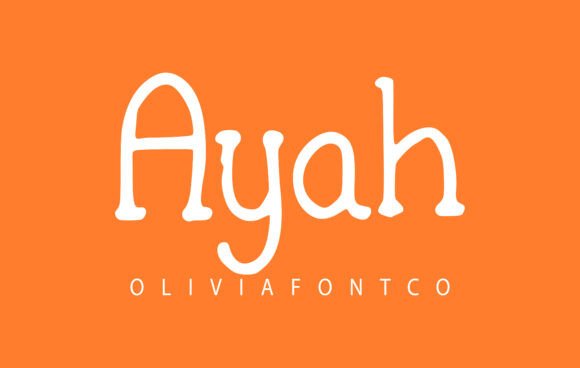
Ayah Font: The Ultimate Handwritten Font for Creative Designs
In the world of typography, a well-designed font can make all the difference in elevating your creative ideas to new heights. Introducing Ayah Font, an authentic handwritten font with a romantic touch that is sure to capture your heart. Expertly crafted to be a true favorite, Ayah Font has the potential to transform your designs and take them to the highest level.
The Unique Features of Ayah Font
Ayah Font boasts a range of unique features that make it an exceptional choice for designers. This font is legible and looks great as a title or body text, making it versatile and adaptable to various design applications. Whether you’re working on magazine headlines, social media graphics, branding materials, wedding invitations, or cards, Ayah Font is the perfect choice.
Romantic and Authentic
Ayah Font’s romantic and authentic handwritten style is what sets it apart from other fonts. The font’s elegant and flowing lines evoke a sense of sophistication and refinement, making it ideal for designs that require a touch of class. The authentic feel of Ayah Font also makes it perfect for designs that require a personal and human touch.
Legibility and Versatility
One of the standout features of Ayah Font is its exceptional legibility. The font is designed to be clear and easy to read, making it perfect for body text and titles. Additionally, Ayah Font’s versatility allows it to be used in a wide range of design applications, from digital media to print materials.
Design Applications for Ayah Font
Ayah Font’s versatility makes it an excellent choice for various design applications. Here are some of the ways you can use Ayah Font to elevate your designs:
Magazine Headlines
Ayah Font’s elegant and refined style makes it perfect for magazine headlines. The font’s romantic touch adds a touch of sophistication to any headline, making it stand out on the page.
Social Media Graphics
In the world of social media, visually appealing graphics are essential for grabbing attention. Ayah Font’s legibility and stylish design make it an excellent choice for social media graphics, including Facebook posts, Instagram captions, and Twitter headers.
Branding Materials
Ayah Font’s unique and authentic style makes it an excellent choice for branding materials, including logos, business cards, and letterheads. The font’s romantic touch adds a touch of personality to any brand, making it more relatable and memorable.
Wedding Invitations and Cards
Ayah Font’s elegant and refined style makes it perfect for wedding invitations and cards. The font’s romantic touch adds a touch of sophistication and elegance to any wedding design, making it a memorable and special occasion.
Why Choose Ayah Font?
With so many fonts available, why choose Ayah Font? Here are some compelling reasons to choose Ayah Font for your next design project:
Unique and Authentic
Ayah Font’s unique and authentic handwritten style sets it apart from other fonts. The font’s romantic touch adds a touch of personality to any design, making it more relatable and memorable.
Exceptional Legibility
Ayah Font’s exceptional legibility makes it perfect for body text and titles. The font’s clear and easy-to-read design ensures that your message is communicated effectively.
Versatility
Ayah Font’s versatility makes it an excellent choice for various design applications. Whether you’re working on digital media or print materials, Ayah Font is the perfect choice.
In conclusion, Ayah Font is an exceptional handwritten font with a romantic touch that is sure to elevate your creative ideas to new heights. With its unique and authentic style, exceptional legibility, and versatility, Ayah Font is the perfect choice for designers looking to create stunning designs. Whether you’re working on magazine headlines, social media graphics, branding materials, wedding invitations, or cards, Ayah Font is the ultimate font for creative designs.
Get Ready to Elevate Your Designs
Don’t settle for ordinary fonts that fail to impress. Choose Ayah Font and experience the power of exceptional typography. Get ready to elevate your designs and take your creative ideas to the highest level with Ayah Font.